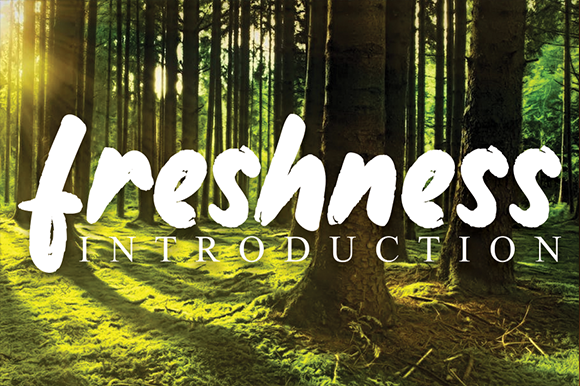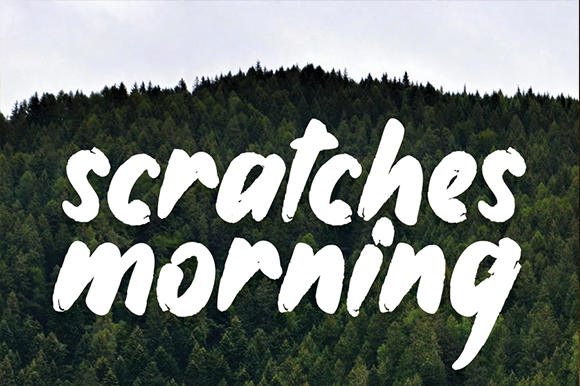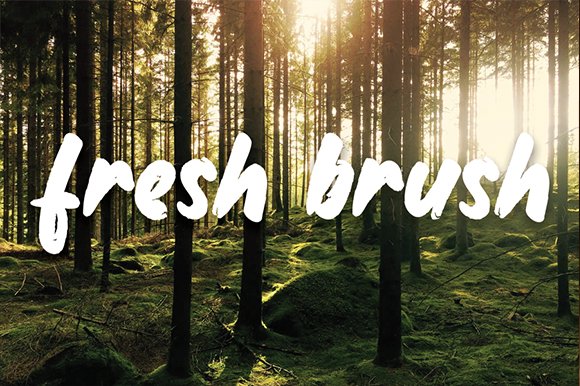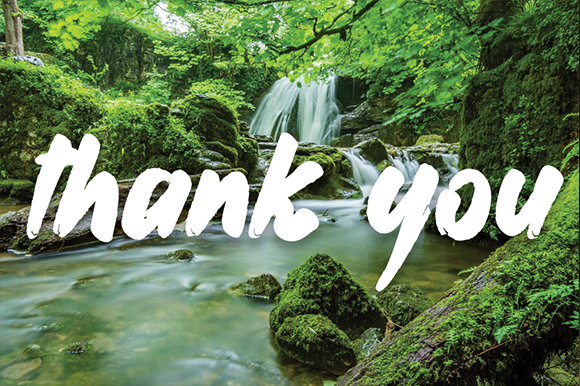
Bollias Font: The Perfect Blend of Elegance and Quirkiness
In the world of typography, fonts play a crucial role in conveying the tone and personality of a brand. For designers and crafters, finding the right font can make all the difference in creating visually appealing and effective designs. If you’re on the hunt for a font that exudes elegance, casualness, and a touch of quirkiness, look no further than Bollias Font.
What is Bollias Font?
Bollias is a casual, elegant handwritten font created by using a brush pen. This unique approach gives the font its distinctive clean and quirky feel. The result is a font that is both refined and approachable, making it perfect for a wide range of design applications.
Characteristics of Bollias Font
So, what makes Bollias Font stand out from the crowd? Here are some of its key characteristics:
- Handwritten with a brush pen: The font’s handmade nature gives it a personal and organic feel.
- Clean and elegant: Bollias Font boasts a refined and sophisticated aesthetic, making it suitable for high-end designs.
- Quirky and playful: The font’s quirky undertones add a touch of whimsy and fun to any design.
- Versatile: Bollias Font is perfect for a variety of design projects, from logos and branding to social media and DIY crafts.
Use Cases for Bollias Font
Thanks to its versatility, Bollias Font can be used in a multitude of design applications. Here are some ideas to get you started:
- Logos and branding: Create a lasting impression with a custom logo that showcases your brand’s personality.
- Social media graphics: Add a touch of elegance and whimsy to your social media posts and stories.
- Crafty DIY projects: Bollias Font is perfect for handmade crafts, such as papercrafting, journaling, and scrapbooking.
- Stationery and invitations: Create beautiful and eye-catching stationery and invitations for special occasions.
Why Choose Bollias Font?
With so many fonts available, why choose Bollias Font? Here are just a few reasons:
- Unique and distinctive: Bollias Font stands out from the crowd, giving your designs a one-of-a-kind feel.
- Elegant and refined: The font’s elegant aesthetic makes it perfect for high-end designs and luxury brands.
- Easy to read: Despite its handwritten nature, Bollias Font is surprisingly easy to read, making it perfect for body text and captions.
Tips for Using Bollias Font
To get the most out of Bollias Font, here are a few tips to keep in mind:
- Experiment with colors: Bollias Font looks great in a variety of colors, so don’t be afraid to experiment and find the perfect hue for your design.
- Mix and match: Combine Bollias Font with other fonts to create a unique and eye-catching design.
- Play with textures: Add depth and interest to your design by incorporating textures and patterns.
Bollias Font is a versatile and elegant handwritten font that is perfect for designers and crafters looking to add a touch of quirkiness to their designs. With its clean and refined aesthetic, Bollias Font is suitable for a wide range of design applications, from logos and branding to social media and DIY crafts. Whether you’re looking to create a lasting impression or simply want to add some personality to your designs, Bollias Font is an excellent choice.